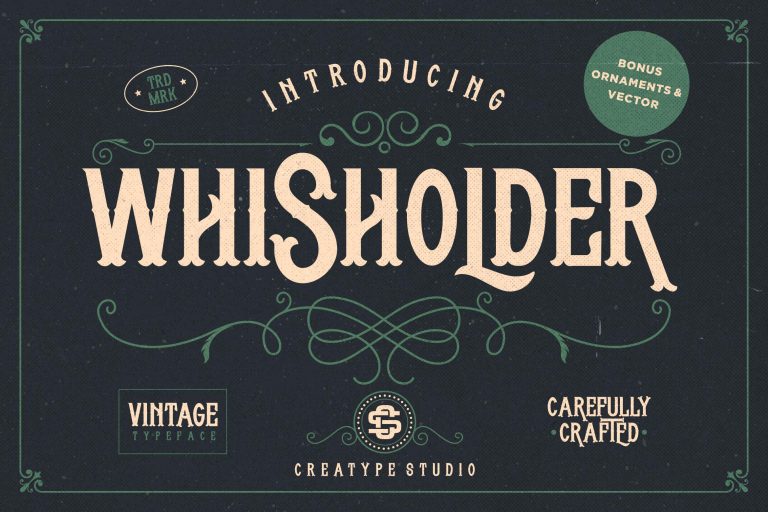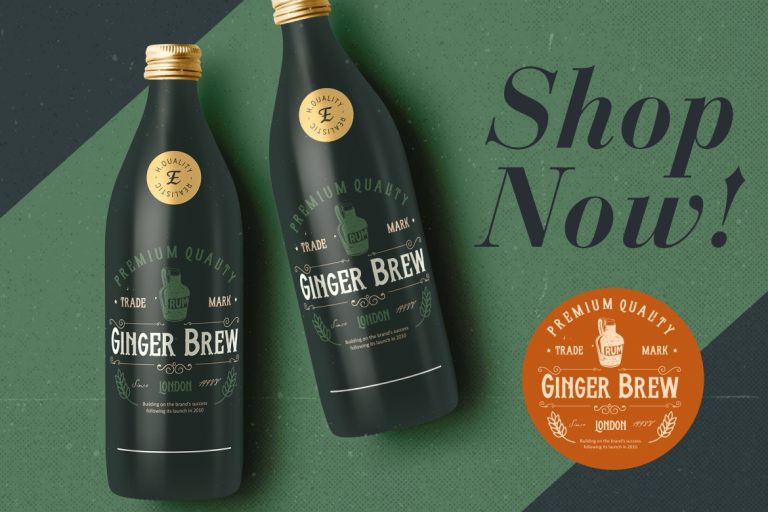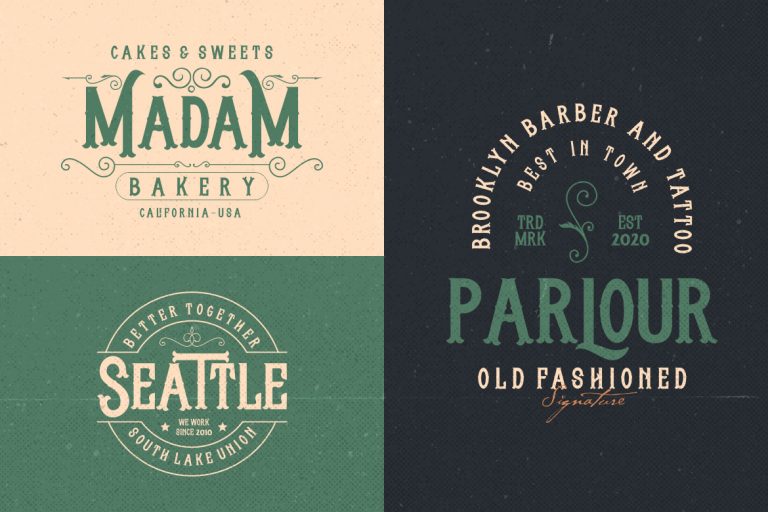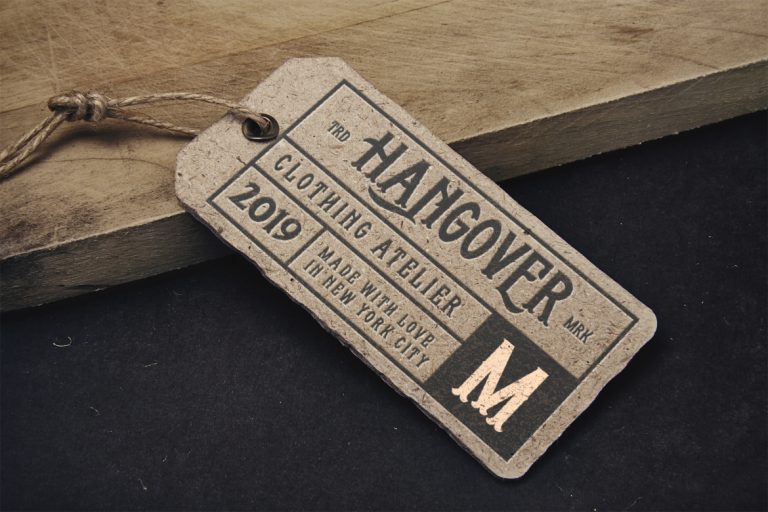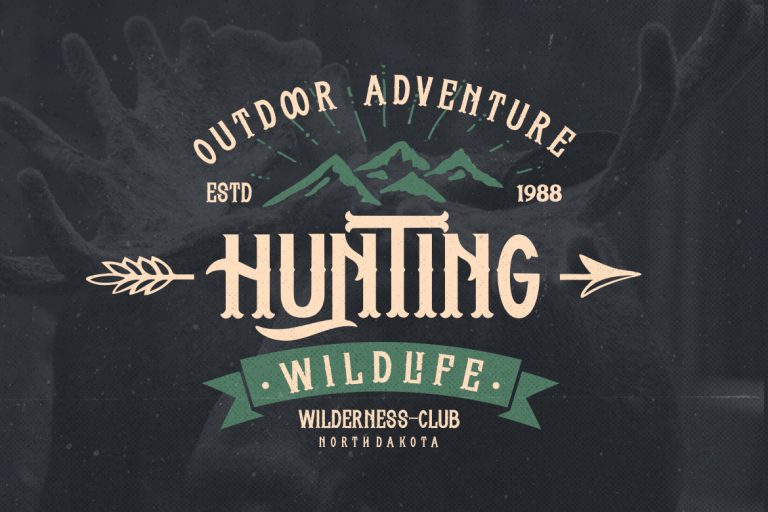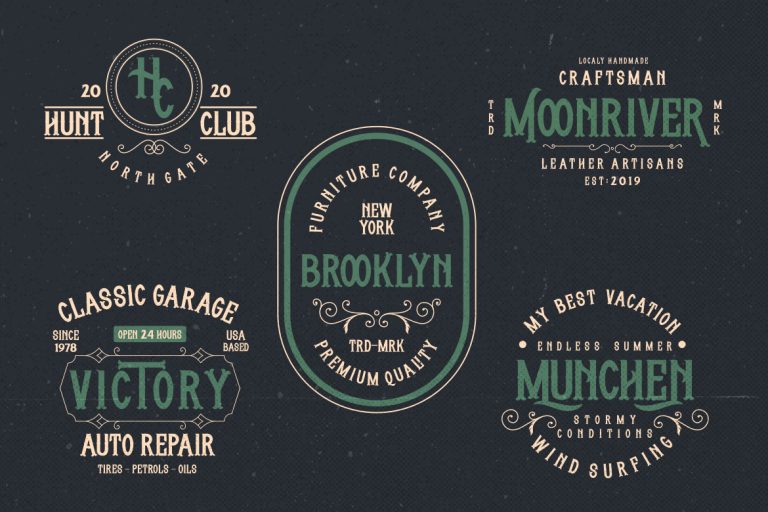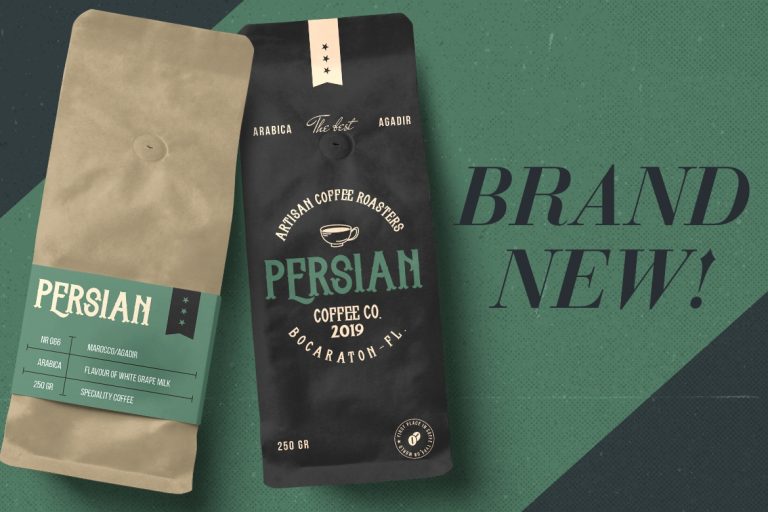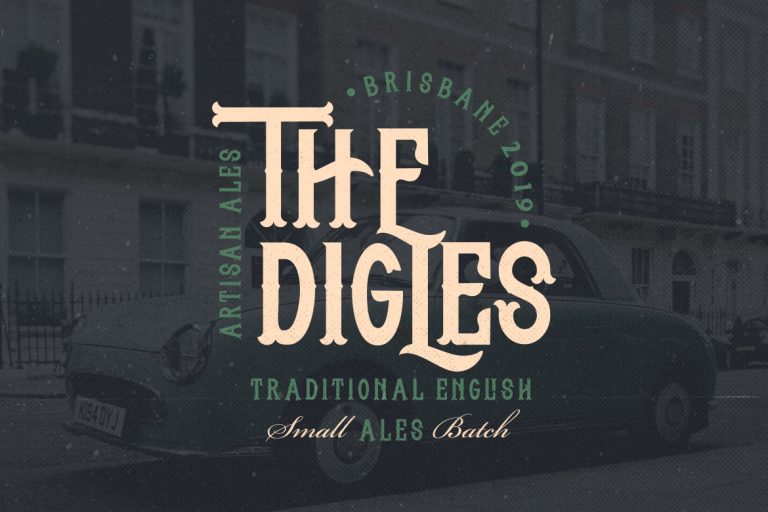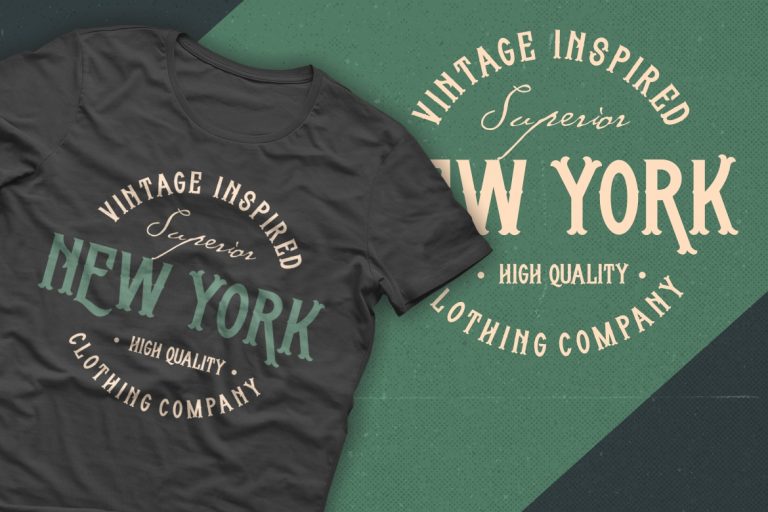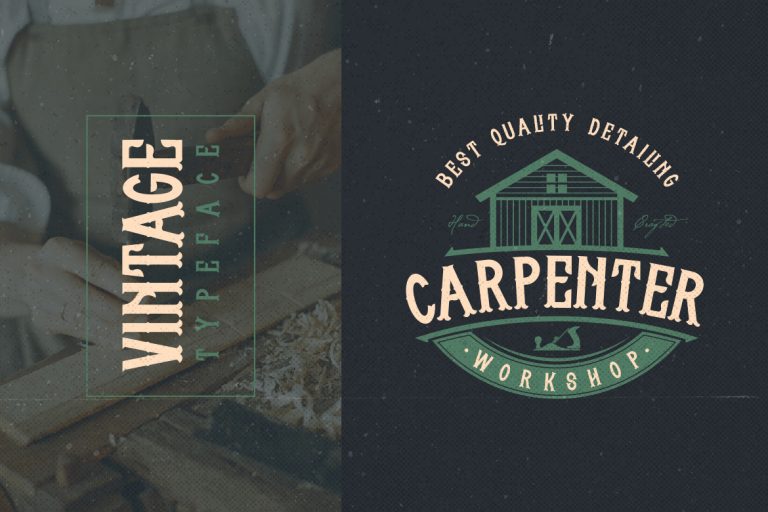
Whisholder is A Vintage and retro typeface with beautiful decorative ornaments which is inspired by vintage lettering sign and art. With has Victorian touch that looks solid and bold, It also comes in Adventure & Camp vector that ready to use to create a vintage lettering in sec.
Whisholder is perfect for branding projects, logo, wedding designs, social media posts, advertisements, product packaging, product designs, label, photography, watermark, invitation, stationery and any projects that need handwriting taste.
- More than 500 of glyphs
- Ligature & Stylistic alternate
- Ornament vector bonus
- Adventure & Camp vector bonus
Whisholder Vintage Retro Typeface